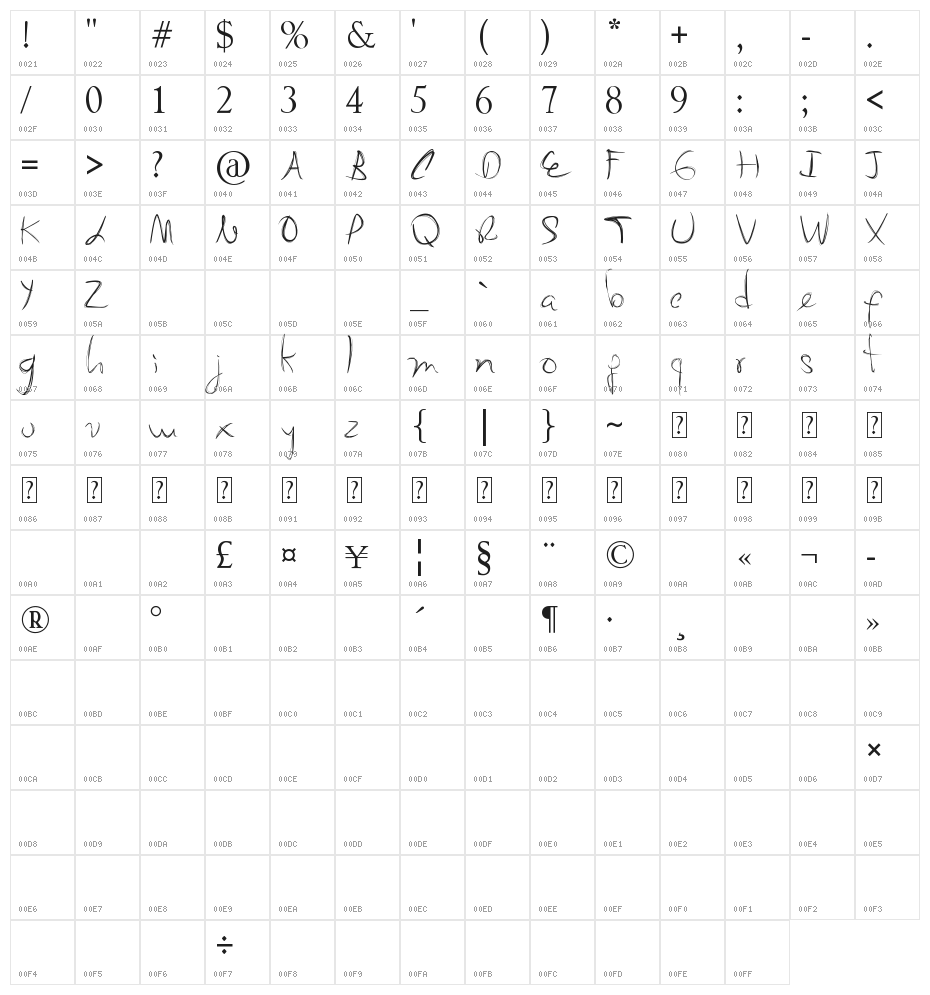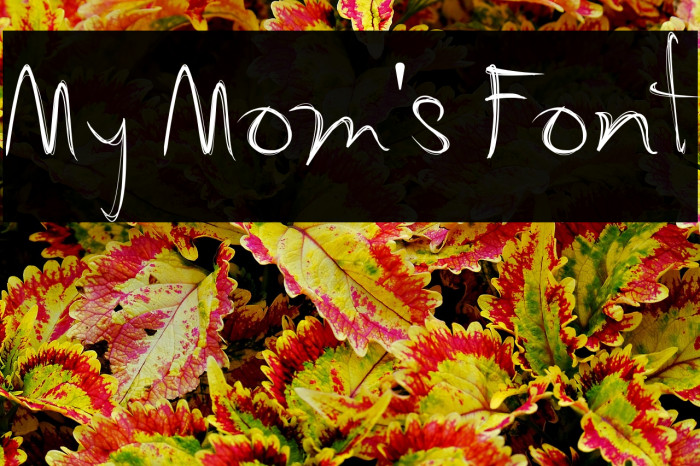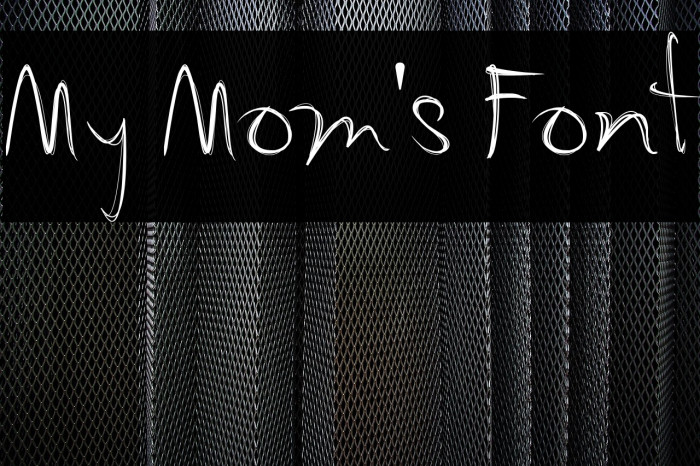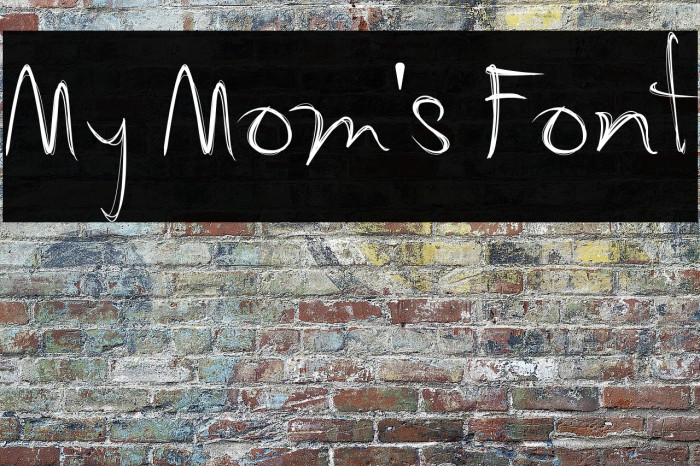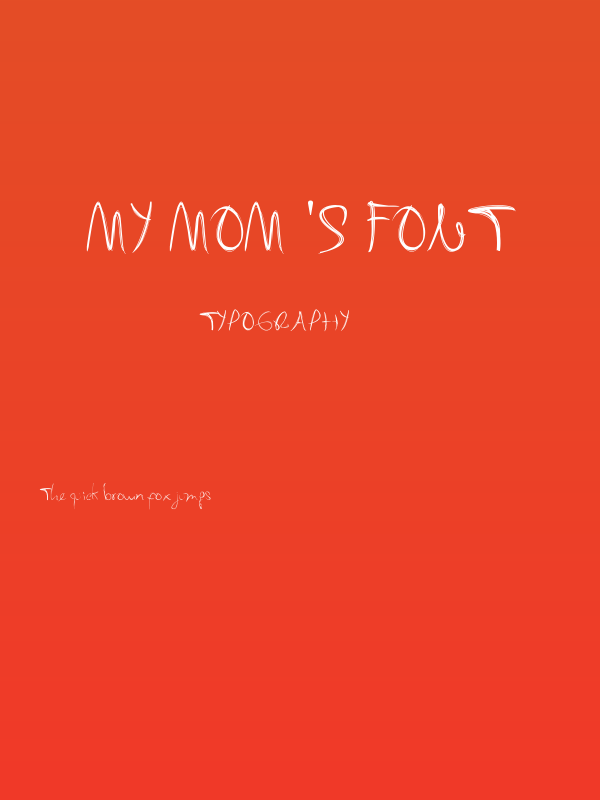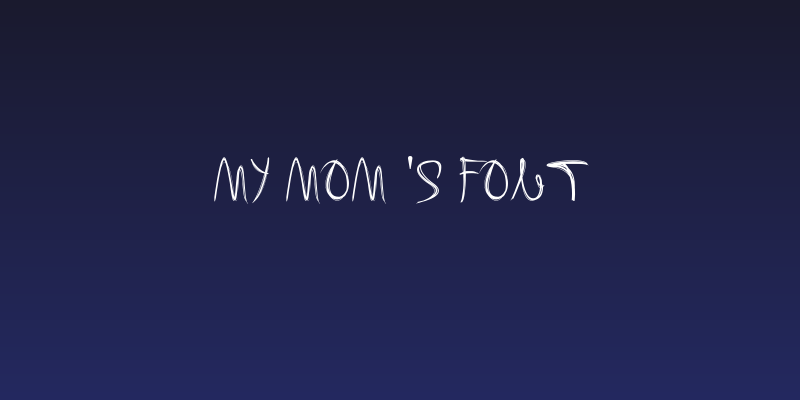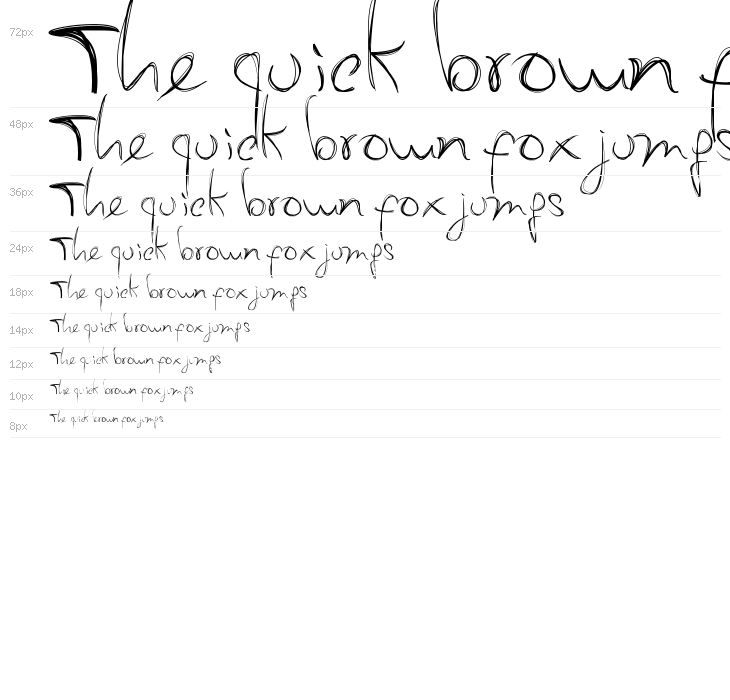
My Mom's Font Description
This font features a unique blend of handwritten and decorative styles, characterized by its flowing, cursive-like strokes and playful, artistic flair. The uppercase letters exhibit a dynamic, sweeping motion, while the lowercase letters maintain a consistent, fluid form. The numerals are bold and clear, providing a strong contrast to the more whimsical letterforms. Special characters are creatively designed, adding to the font's overall charm. This font's distinct personality makes it suitable for projects that require a touch of elegance and creativity.
| Use Case | Logos, Invitations, Creative projects |
| Proposed Projects | Ideal for greeting cards, invitations, branding, and creative projects that require a personal touch. |